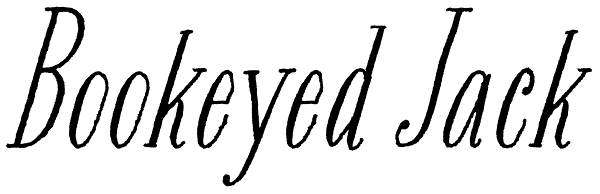
Bookeyed Jack
Everyone loves Jack! He’s easy to be around and plays delightfully with other Tart Workshop fonts. Bookeyed Jack is strong enough to command the page, yet he doesn’t complain when others get more attention. His handsome good looks were handdrawn...